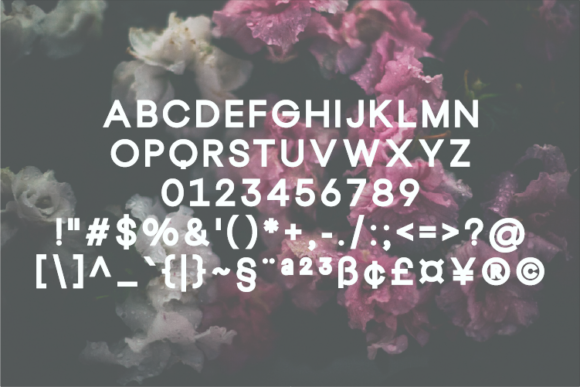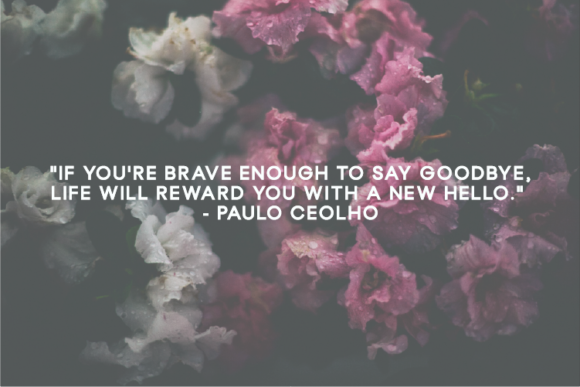
Coredane Font: The Perfect Choice for Designers and Crafters
Coredane is a neat lettered sans serif font that has been gaining popularity among designers and crafters alike. Its clean and modern design makes it perfect for a variety of projects, from digital designing to crafting, presentations, and greeting cards making. In this article, we’ll take a closer look at the Coredane font and explore its features, benefits, and uses.
What is Coredane Font?
Coredane is a sans serif font that is characterized by its clean and simple design. It is a lettered font, which means that each letter is carefully crafted to give it a unique and personal touch. The font is designed to be highly legible and versatile, making it suitable for a wide range of projects.
Features of Coredane Font
Coredane font has several features that make it an excellent choice for designers and crafters. Some of its key features include:
- Clean and Modern Design: Coredane font has a clean and modern design that is perfect for projects that require a sleek and contemporary look.
- High Legibility: The font is designed to be highly legible, making it easy to read even at small sizes.
- Versatility: Coredane font is versatile and can be used for a wide range of projects, from digital designing to crafting and presentations.
Benefits of Using Coredane Font
There are several benefits to using Coredane font in your projects. Some of the benefits include:
- Professional Look: Coredane font gives your projects a professional look that is sure to impress.
- Improved Readability: The font’s high legibility ensures that your text is easy to read, even for readers with visual impairments.
- Flexibility: Coredane font can be used for a wide range of projects, making it a great addition to your font library.
- Unique Style: The font’s unique design ensures that your projects stand out from the crowd.
Uses of Coredane Font
Coredane font is perfect for a variety of projects, including:
- Digital Designing: Use Coredane font to create stunning digital designs, such as social media graphics, blog posts, and email newsletters.
- Crafting: Coredane font is perfect for crafting projects, such as making greeting cards, scrapbooking, and DIY projects.
- Presentations: Use Coredane font to create professional-looking presentations that are sure to impress.
- Greeting Cards Making: Coredane font is perfect for making greeting cards, invitations, and other paper crafts.
Coredane font is a neat lettered sans serif font that is perfect for designers and crafters. Its clean and modern design, high legibility, and versatility make it suitable for a wide range of projects. Whether you’re using it for digital designing, crafting, presentations, or greeting cards making, Coredane font is sure to give your projects a professional look. So why not give Coredane font a try and see the difference it can make in your designs?